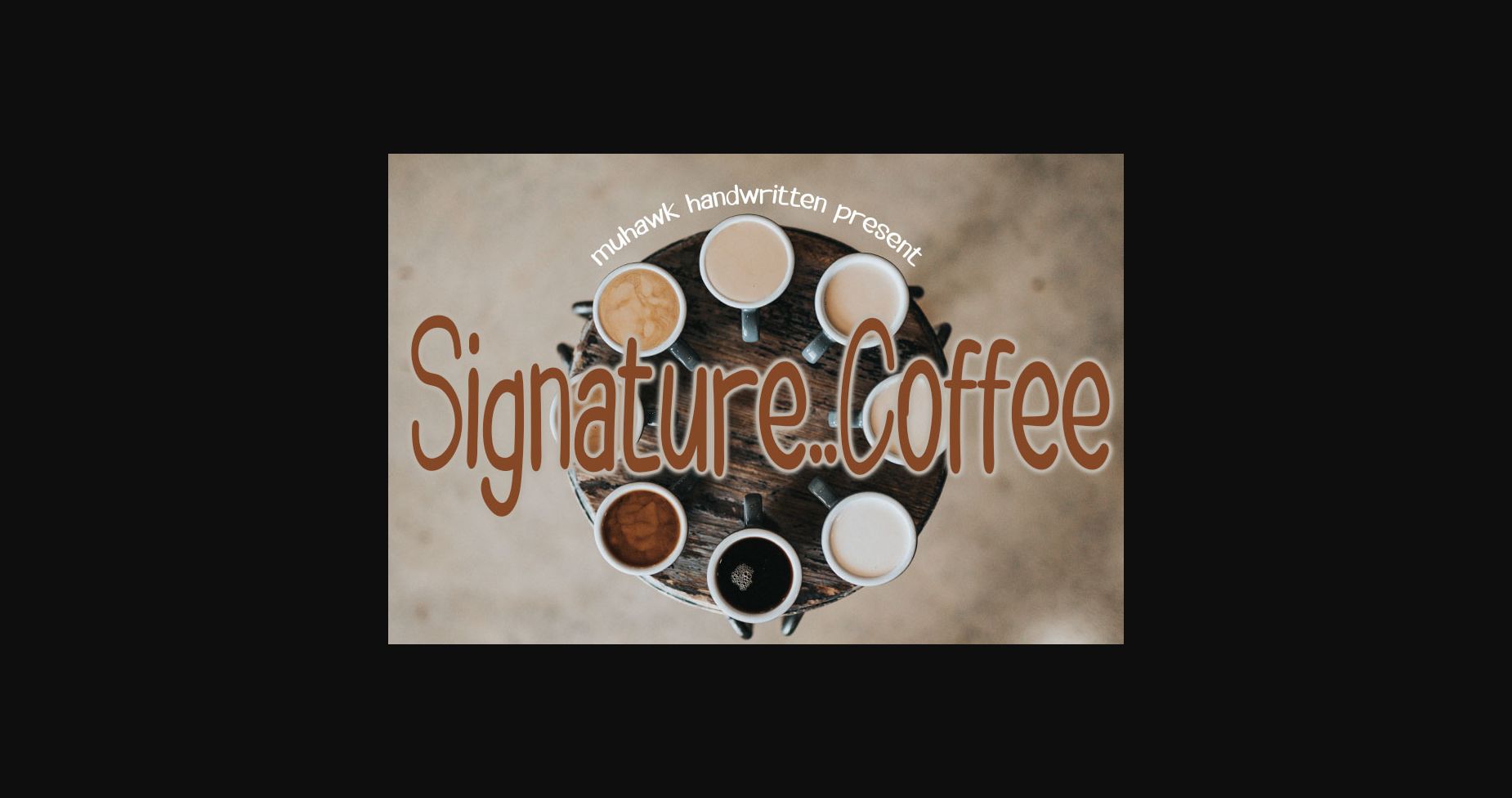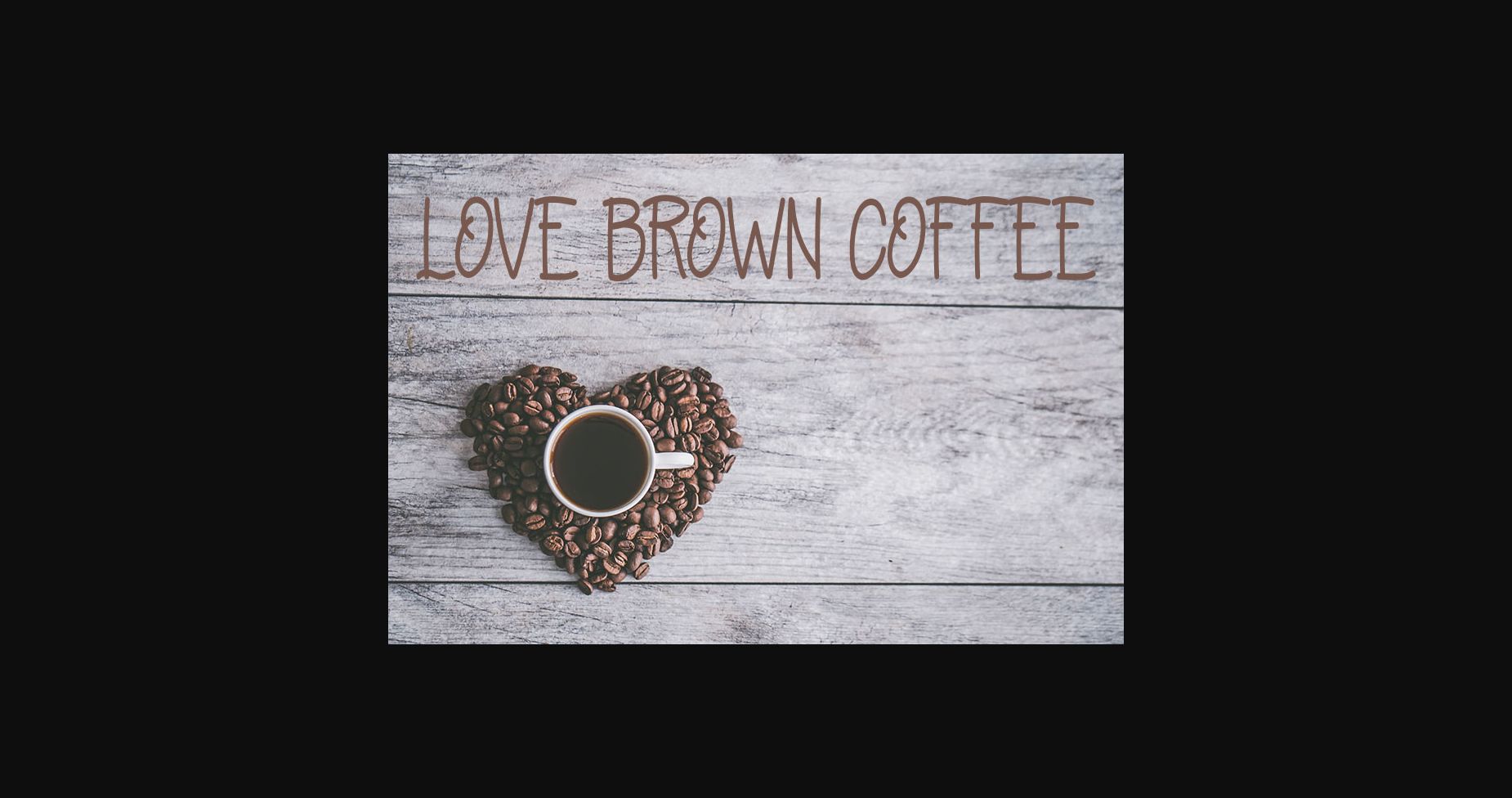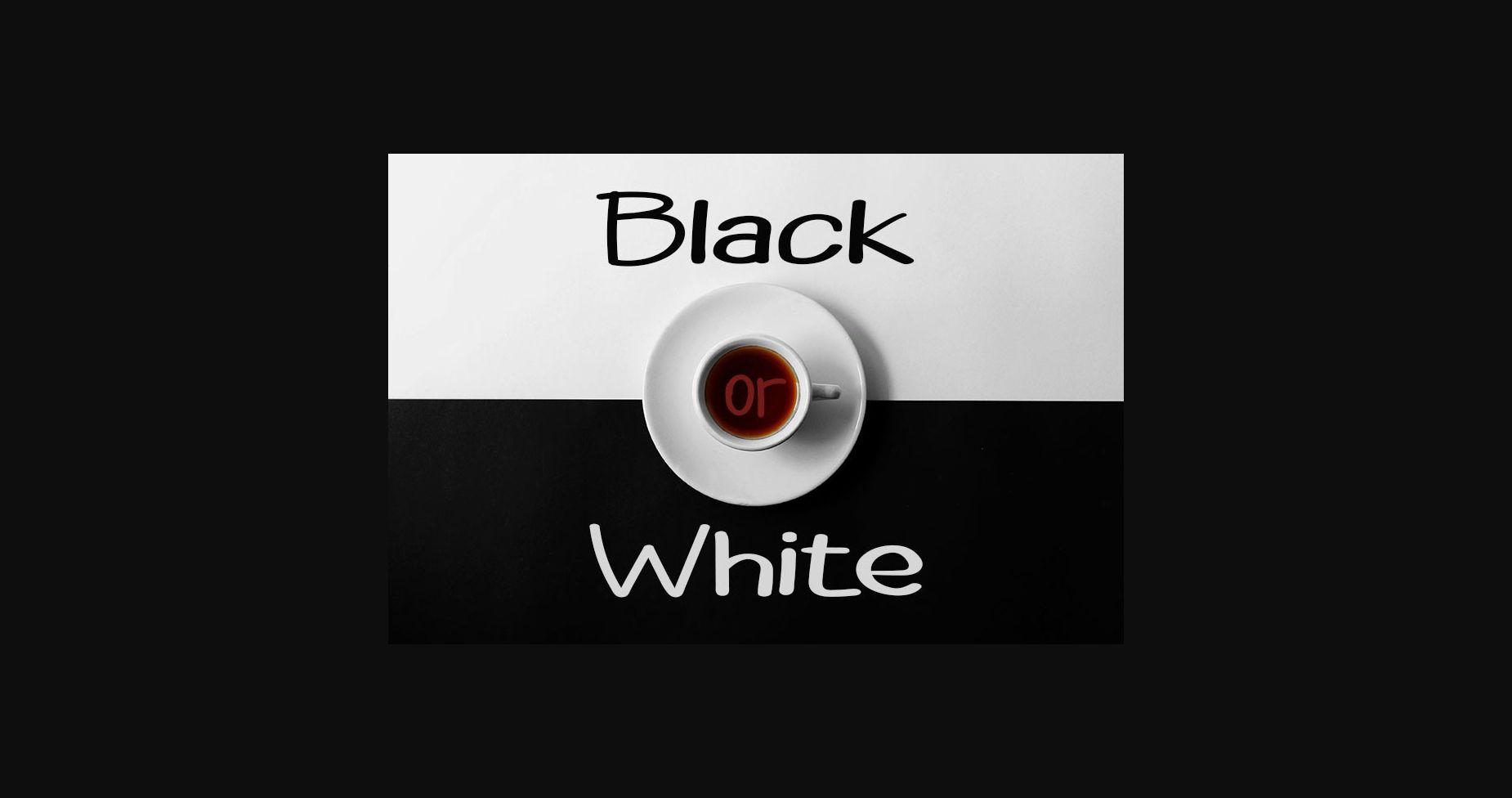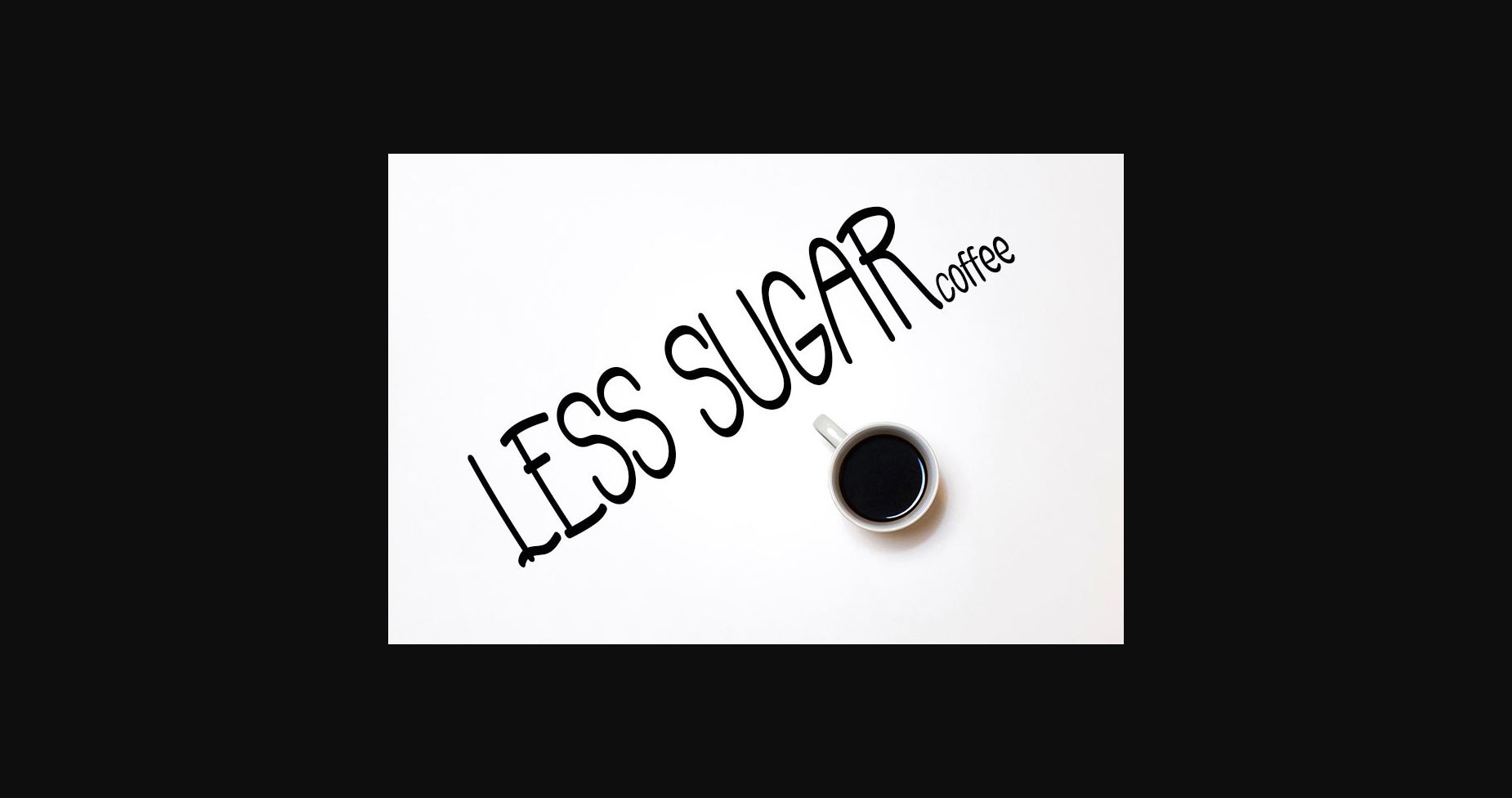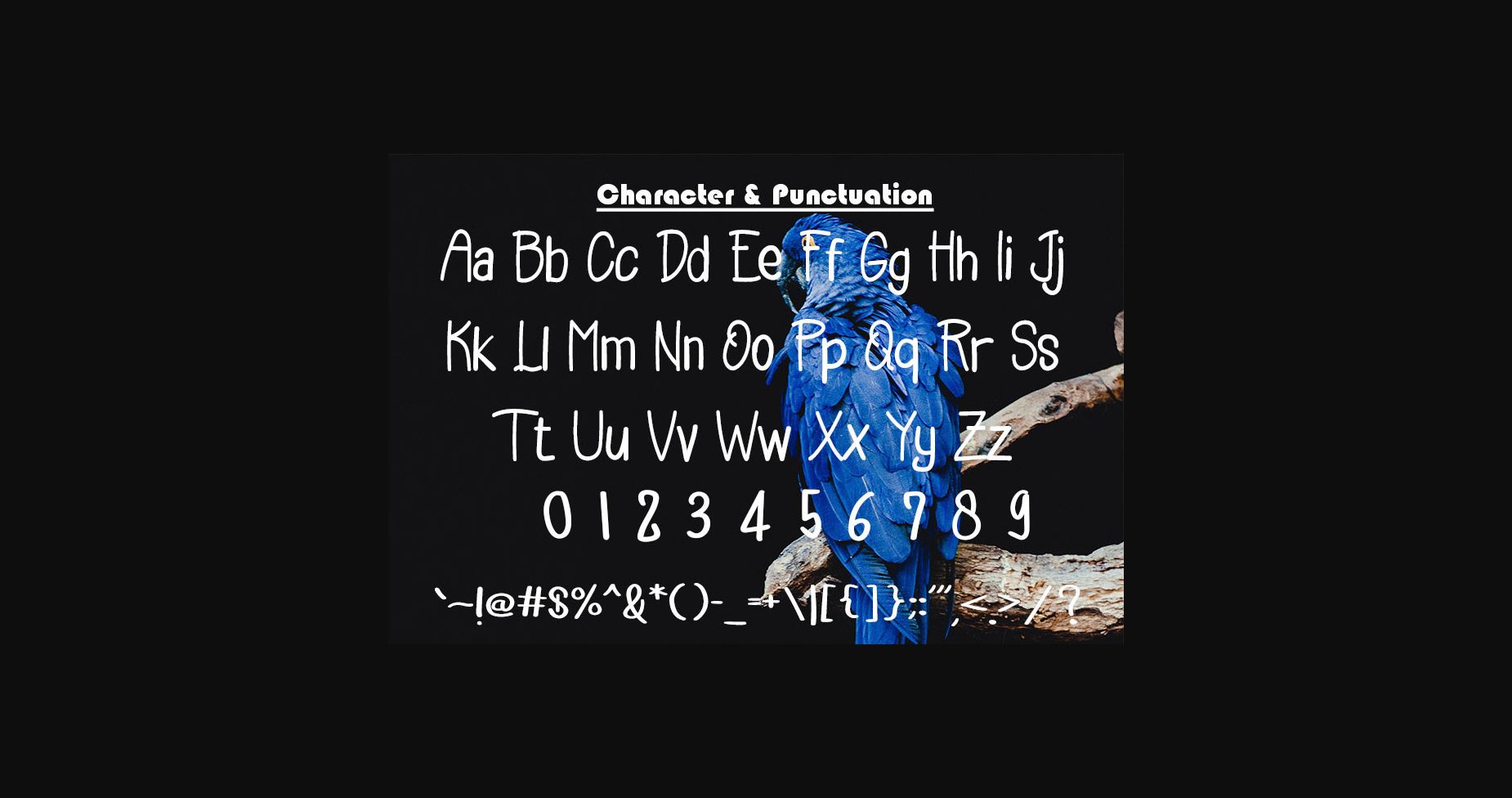
Signature Coffee Font
About Signature Coffee Font
Signature Coffee is a beautifully assorted sans serif font. Distinctly fresh and exquisite, this font will elevate the look of any logos, brand names, book titles, and marketing materials.